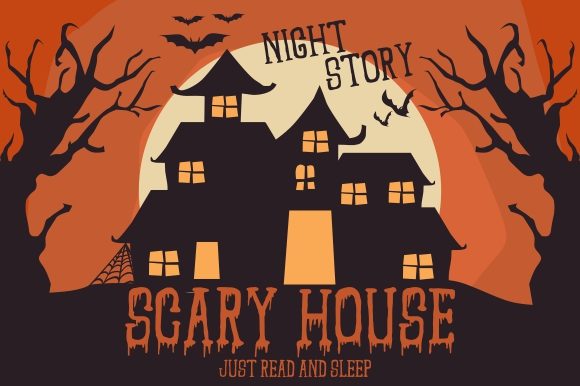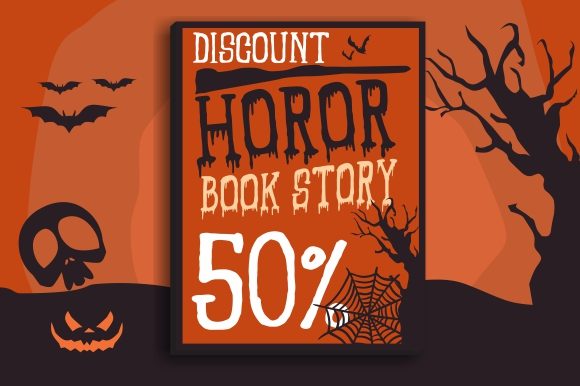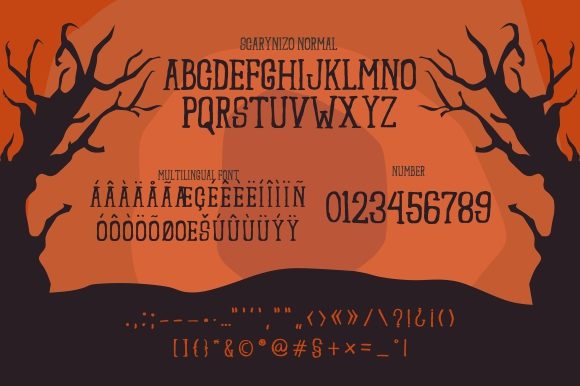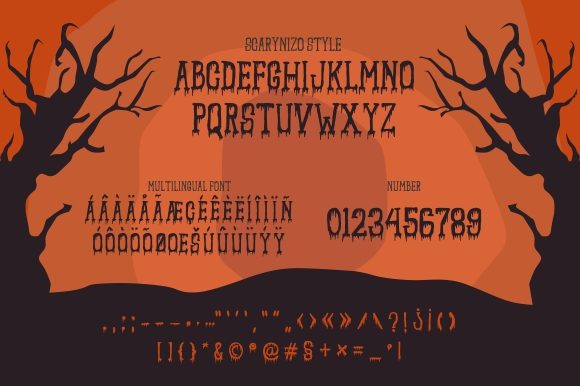
Introduction to Scarynizo Font Font
Fonts play a crucial role in design, and the Scarynizo Font font is a typeface that brings both character and versatility to any project. Whether you’re working on a branding project, a website, or a print design, the Scarynizo Font font offers a unique style that can elevate your work.
Scarynizo is a scary and creepy display font duo that will work wonderfully in any Horror- or Halloween designs.
Use it to add a weird and twisted touch to all your DIY-projects .
The Scarynizo Font font is more than just a typeface – it’s a design tool that helps you communicate your message with style and clarity. Its unique character set and versatile design make it suitable for a wide range of applications, from elegant invitations to bold headlines.
With its carefully crafted letterforms and balanced proportions, the Scarynizo Font font ensures readability and visual appeal across all mediums.
The Scarynizo Font font stands out with its unique design, exceptional readability, and versatility across various design applications.